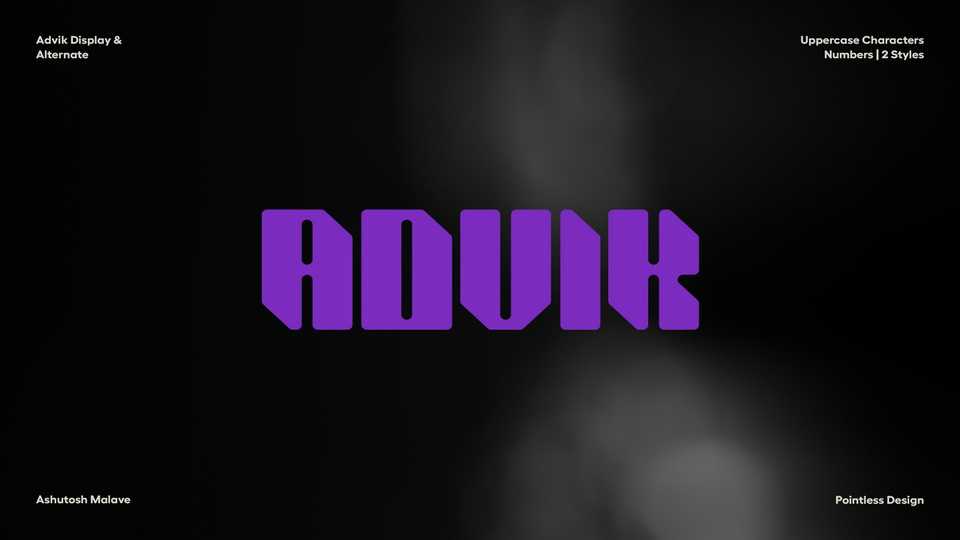
Download Advik font, a clean and bold display typeface, inspired by modern tech. Advik is suitable for abstract, fashion, branding, packaging, and editorial uses.
Designer: Ashutosh Malave